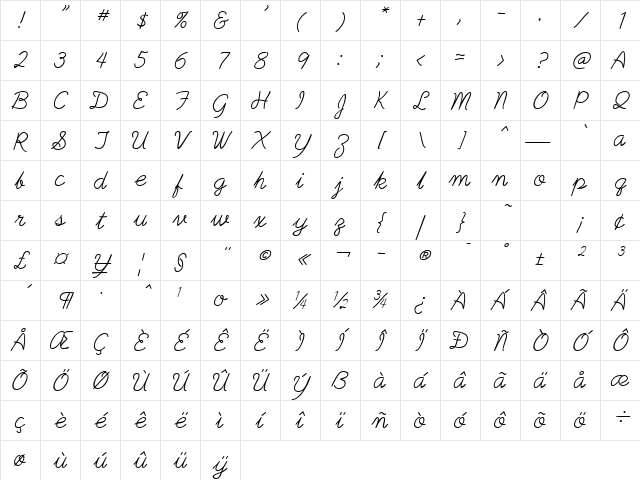
PlainPensle Italic Free Font
PlainPensle Italic
PlainPensle Family
Design Context for PlainPensle
PlainPensle is a composed and adaptable typeface that performs quietly and consistently across a wide range of design contexts. The slanted form adds forward momentum and visual energy.
Pro Tip: Use PlainPensle for emphasis, pull quotes, and subheadings where its slanted energy can add rhythm to the layout.